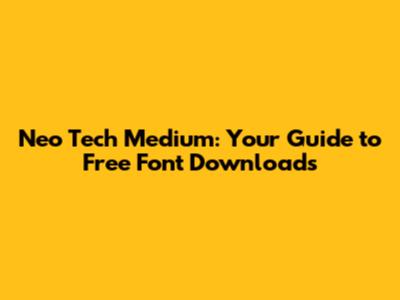
- Headings and Titles: Neo Tech Medium shines as a heading font. Use it for titles and subheadings to grab attention and convey a sense of modernity. Its clean lines and geometric shapes make it perfect for making a statement.
- Logos and Branding: If your brand is tech-focused or futuristic, Neo Tech Medium can be an excellent choice for your logo. It communicates innovation and sophistication, which can help your brand stand out.
- UI Design: Consider using Neo Tech Medium in user interfaces for software or websites. It can give your designs a sleek, modern look, making the user experience feel more contemporary.
- Print Materials: Don't limit Neo Tech Medium to digital designs. It can also be used in print materials like brochures, posters, and business cards. Its readability and unique style make it a great choice for various print applications.
- Pairing with Other Fonts: While Neo Tech Medium is strong on its own, pairing it with the right fonts can elevate your designs even further. Consider pairing it with a simple sans-serif font for body text to ensure readability. Alternatively, you can use a classic serif font to create a contrast between the modern heading and the traditional body text. Experiment with different font pairings to find what works best for your project. The key is to create a balance between style and readability, ensuring that your message is both visually appealing and easy to understand. By carefully selecting fonts that complement Neo Tech Medium, you can create a cohesive and professional design that captures the attention of your audience.
- Kerning and Tracking: Pay attention to the kerning (the space between individual letters) and tracking (the overall spacing of letters). Adjust these settings to ensure the font looks balanced and readable.
- Contrast: Make sure there's enough contrast between the font color and the background. This is crucial for readability, especially in digital designs.
- Font Size: Choose an appropriate font size for different elements. Headings should be larger and more prominent, while body text should be comfortable to read.
- Consistency: Maintain consistency in your font usage throughout your project. Stick to a limited number of fonts and use them consistently to create a cohesive look.
Hey guys! Are you on the hunt for that perfect, futuristic font to give your projects a sleek, modern edge? Look no further! We're diving deep into the world of Neo Tech Medium, a font that’s been making waves in the design community. Whether you’re a seasoned designer or just starting, understanding how to find and use this font can seriously level up your creative game. So, let’s get started and explore everything about Neo Tech Medium and how you can snag it for free. Finding the right font can often feel like searching for a needle in a haystack, but with this comprehensive guide, you'll be downloading and implementing Neo Tech Medium in no time. We’ll cover everything from its unique characteristics to where you can safely download it and how to use it effectively in your designs. Let's jump right in and transform your projects with this awesome font!
What Makes Neo Tech Medium So Special?
Neo Tech Medium isn't just another font; it's a statement. Its clean lines and futuristic aesthetic make it a go-to choice for designers aiming to convey innovation and modernity. The font's distinct geometric shapes give it a technical feel, perfect for projects related to technology, science, or forward-thinking brands. Its versatility allows it to be used in a variety of applications, from website headers and logos to print materials and user interfaces. This makes Neo Tech Medium incredibly valuable for creating a cohesive brand identity across different platforms. The balanced weight of the font ensures readability while maintaining its unique visual appeal, making it suitable for both headlines and body text. Its adaptability extends to various design styles, seamlessly integrating into minimalist designs or complementing more complex compositions. Designers often choose Neo Tech Medium to evoke a sense of cutting-edge sophistication, setting their work apart with a font that speaks of progress and innovation. Understanding these qualities is key to appreciating its impact and leveraging it effectively in your projects. The font's ability to blend form and function makes it a standout choice for anyone looking to add a touch of contemporary flair to their work. Whether you're designing a website, crafting a logo, or creating marketing materials, Neo Tech Medium can help you communicate your message with clarity and style. Its unique characteristics make it a valuable asset in any designer's toolkit, offering endless possibilities for creative expression.